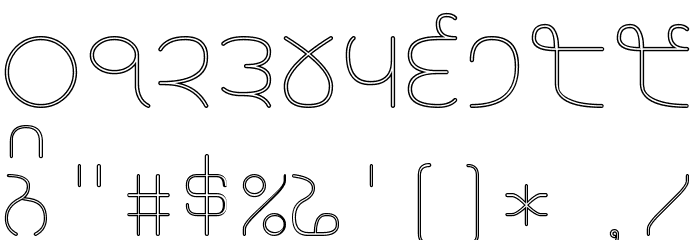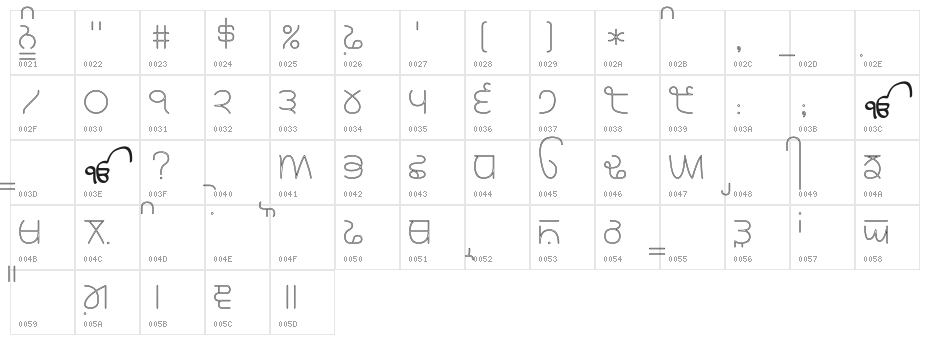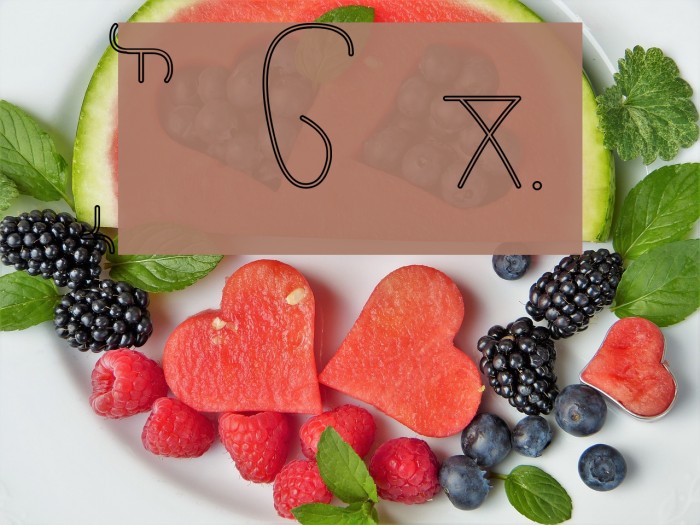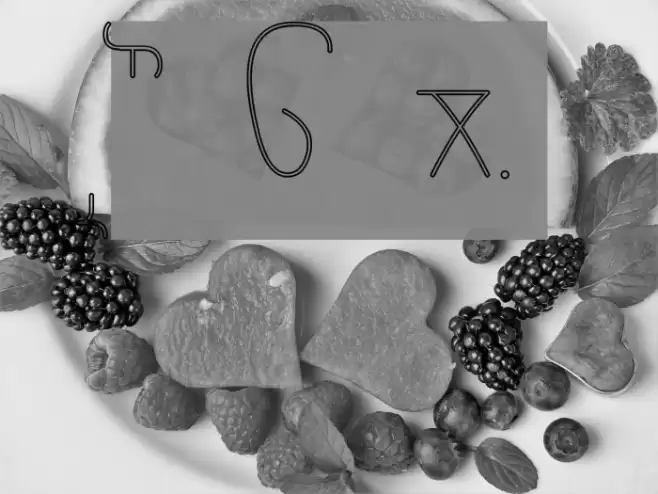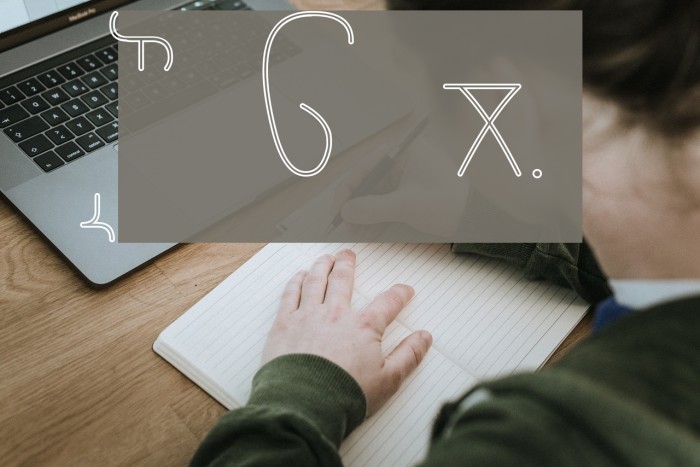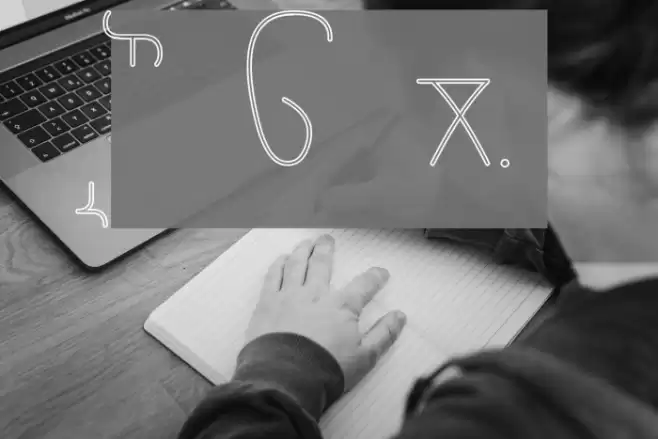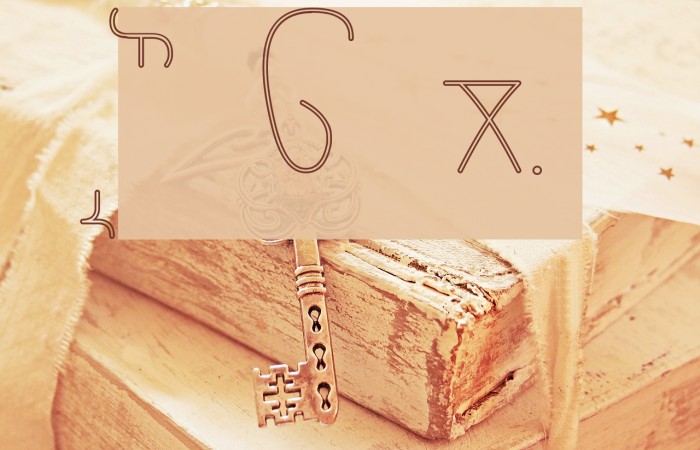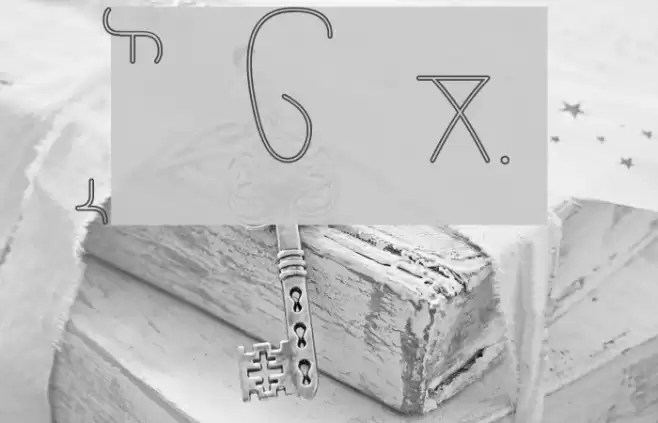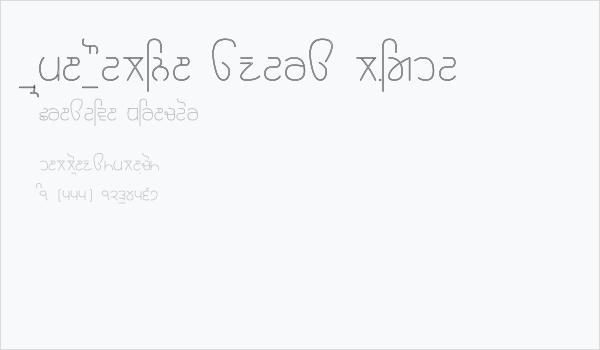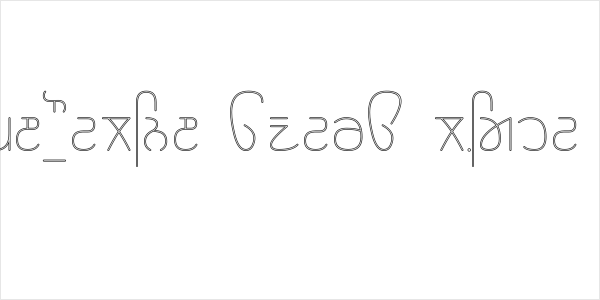
This font features a unique and artistic outline style, characterized by its thin, continuous lines that form each character. The design is highly decorative, with a modern and abstract aesthetic that incorporates geometric shapes and curves. The letters are distinct and easily recognizable, yet they maintain a playful and creative appearance. The font's outline nature gives it a light and airy feel, making it suitable for projects that require a touch of elegance and sophistication. It is particularly effective in large sizes where the intricate details can be fully appreciated.
| Proposed Projects | Ideal for artistic posters, modern branding, creative invitations, and unique logo designs. |